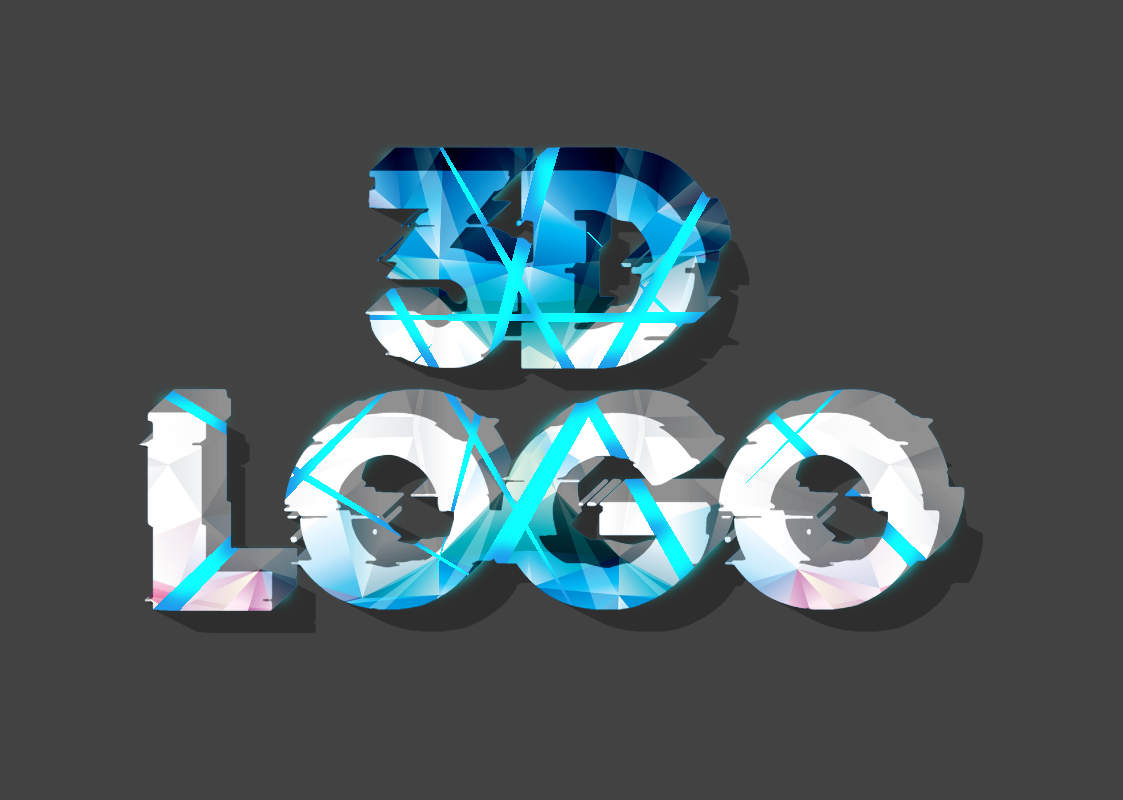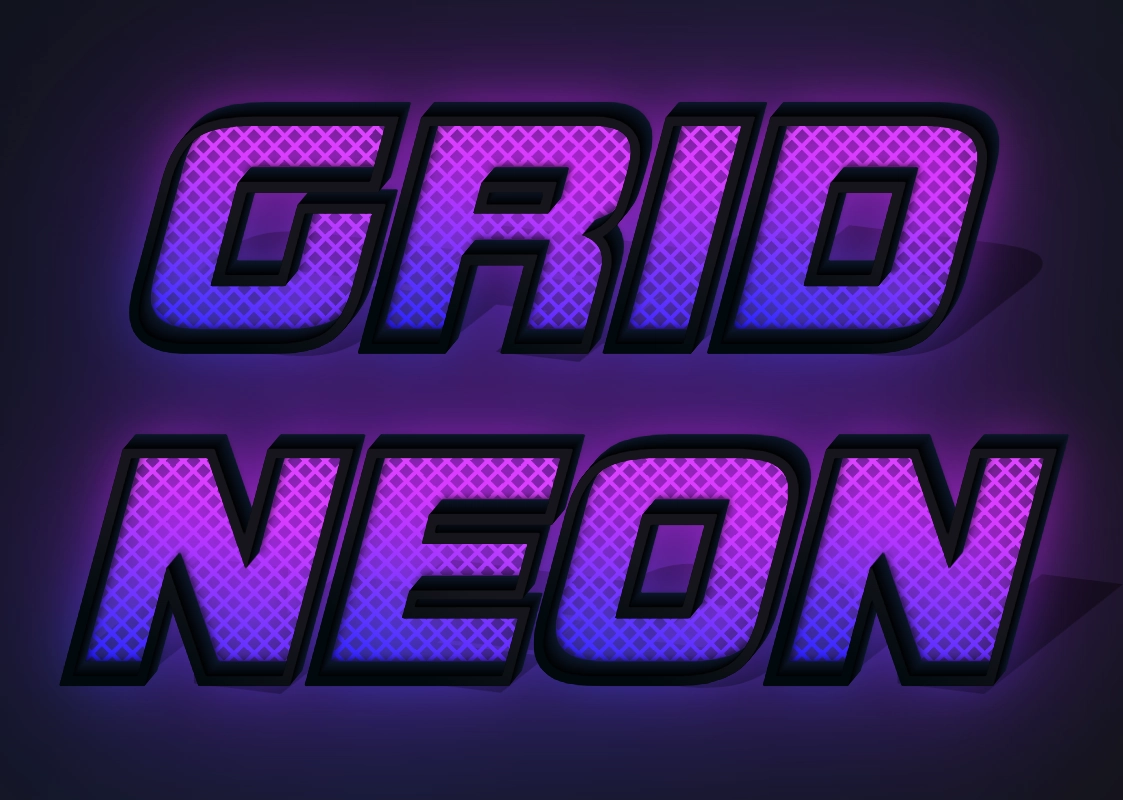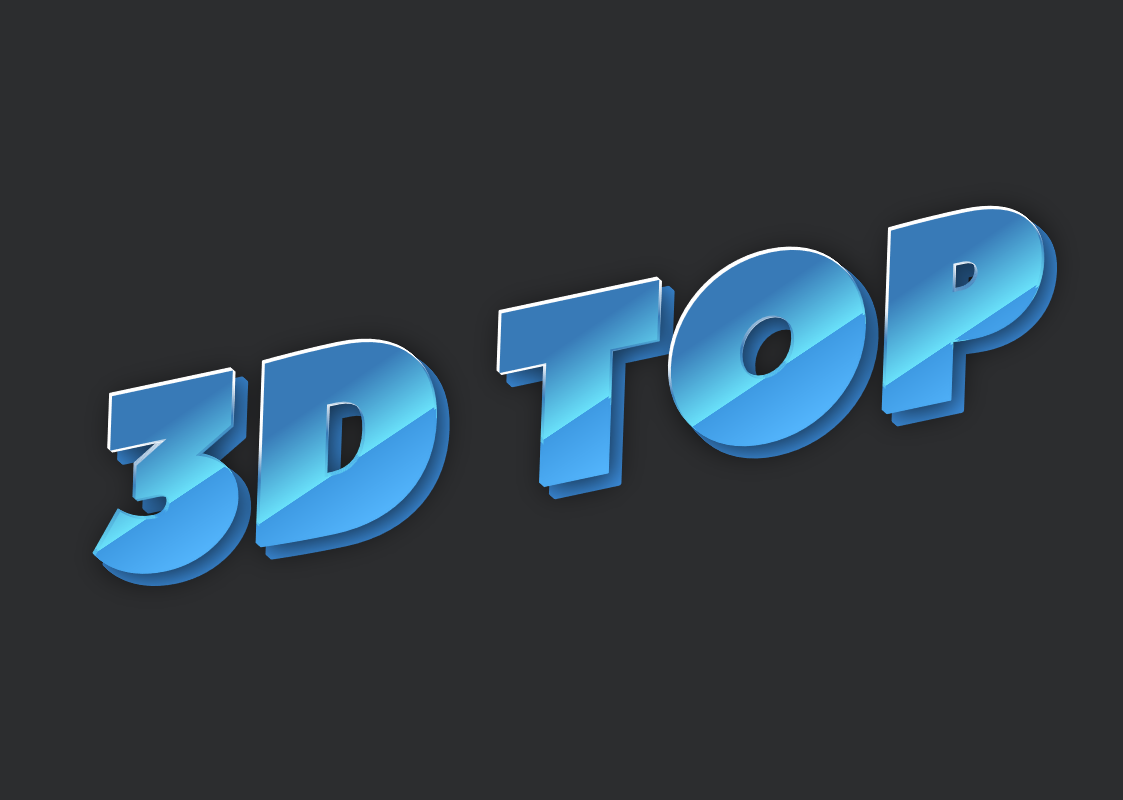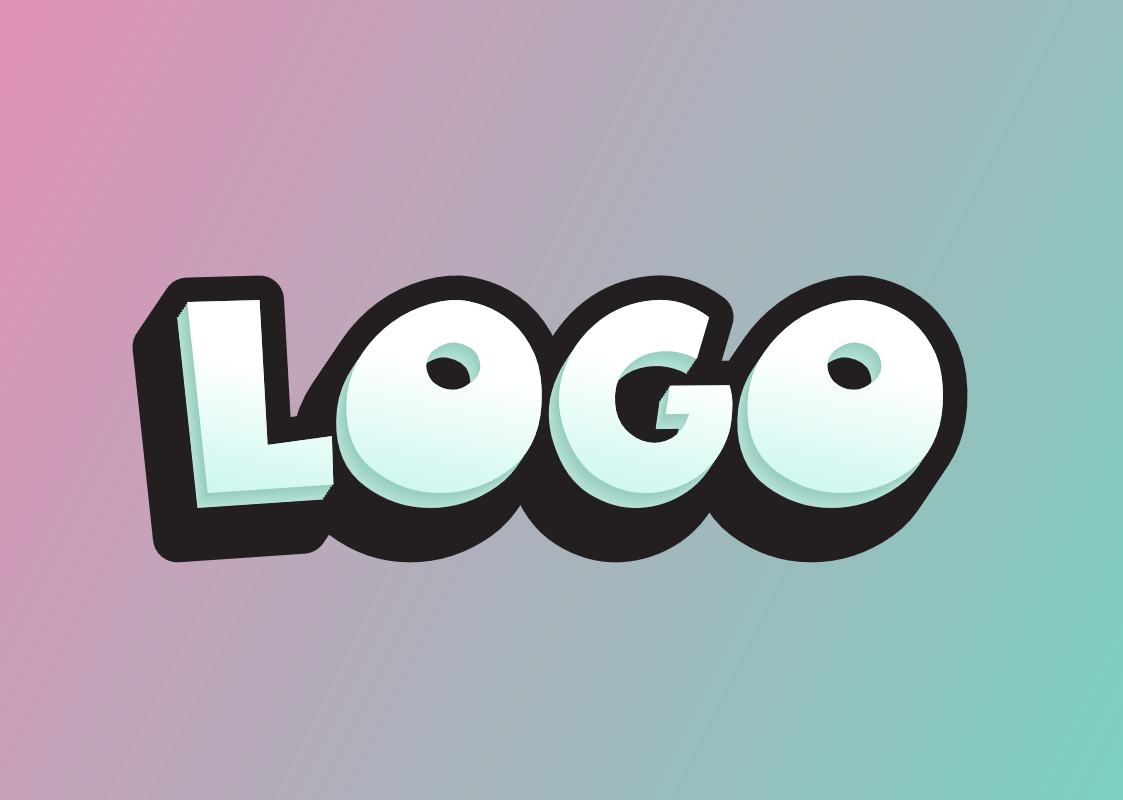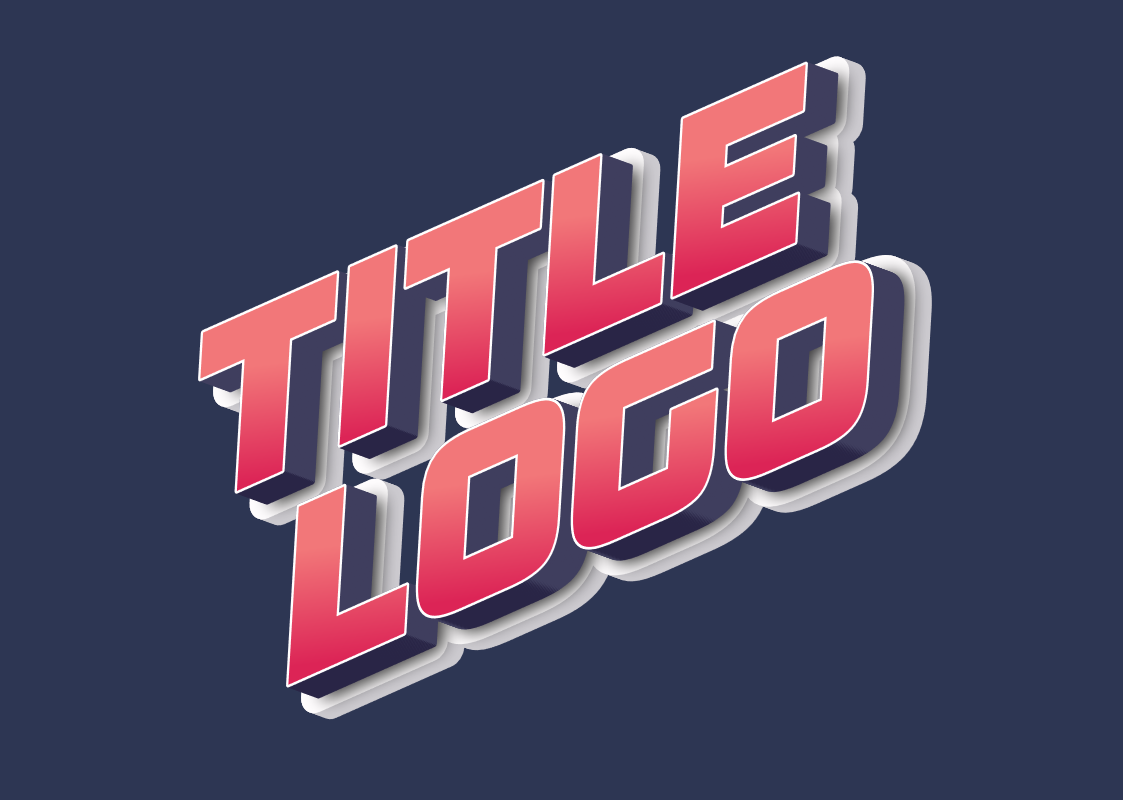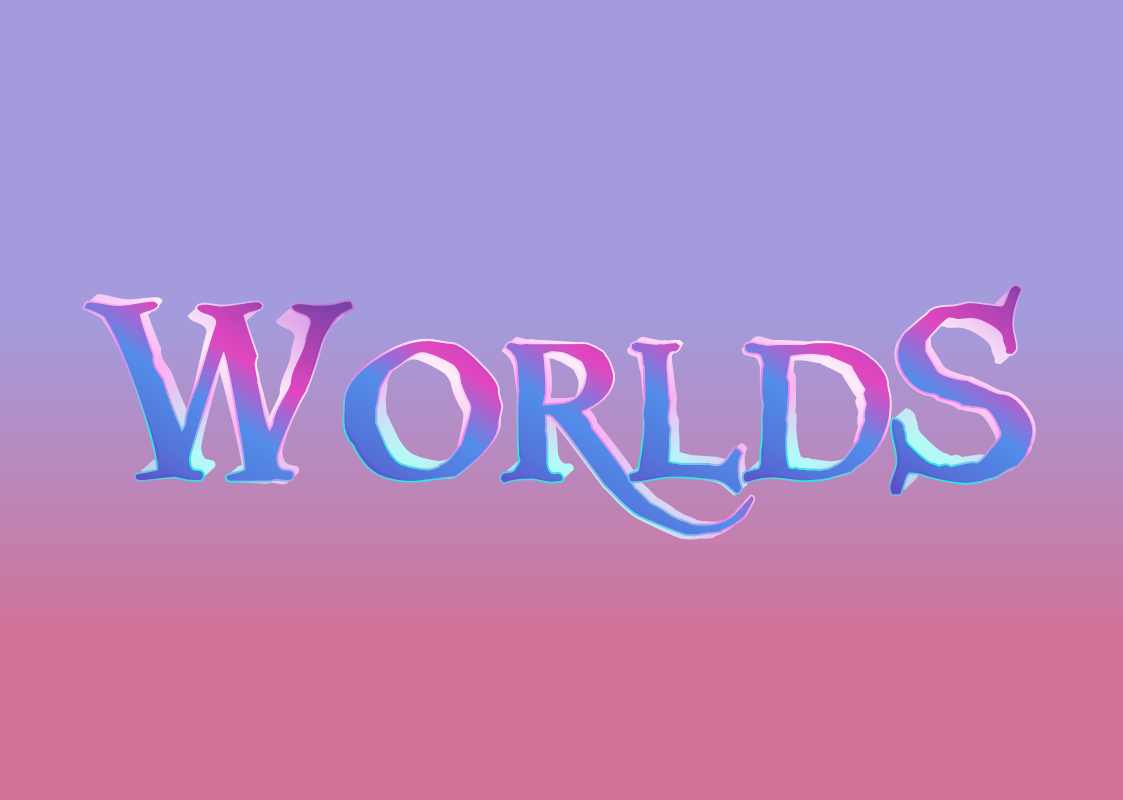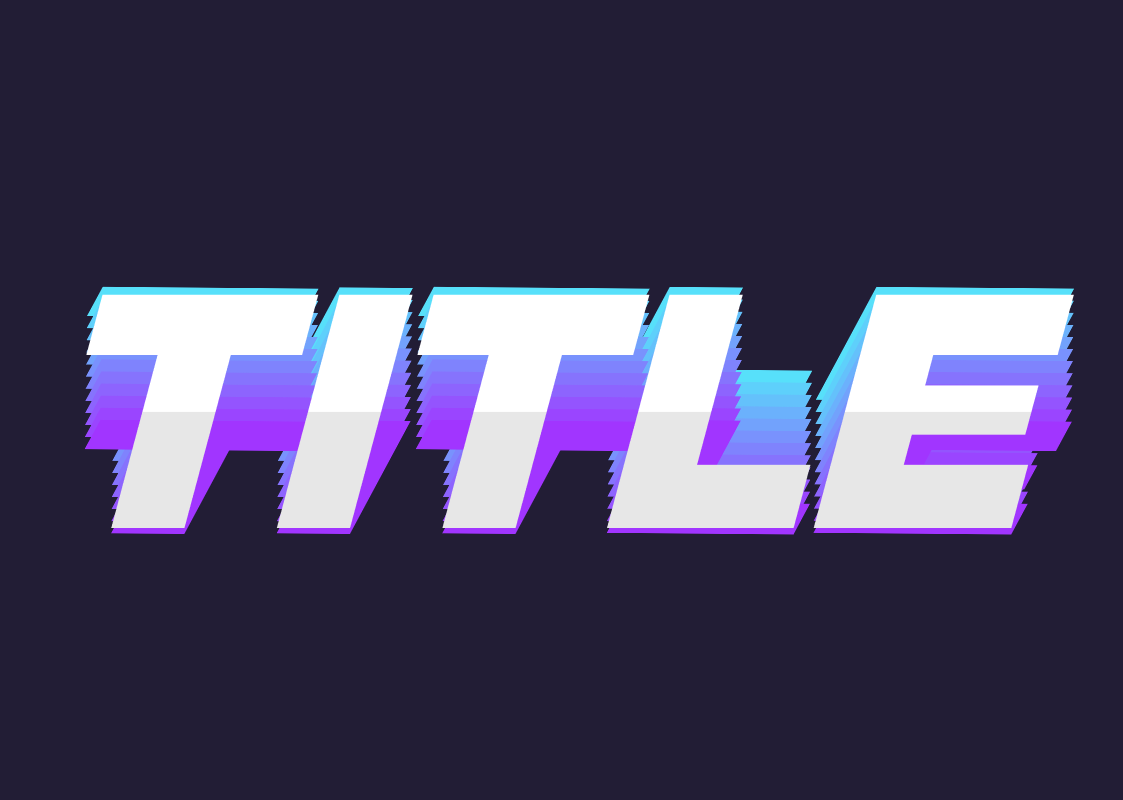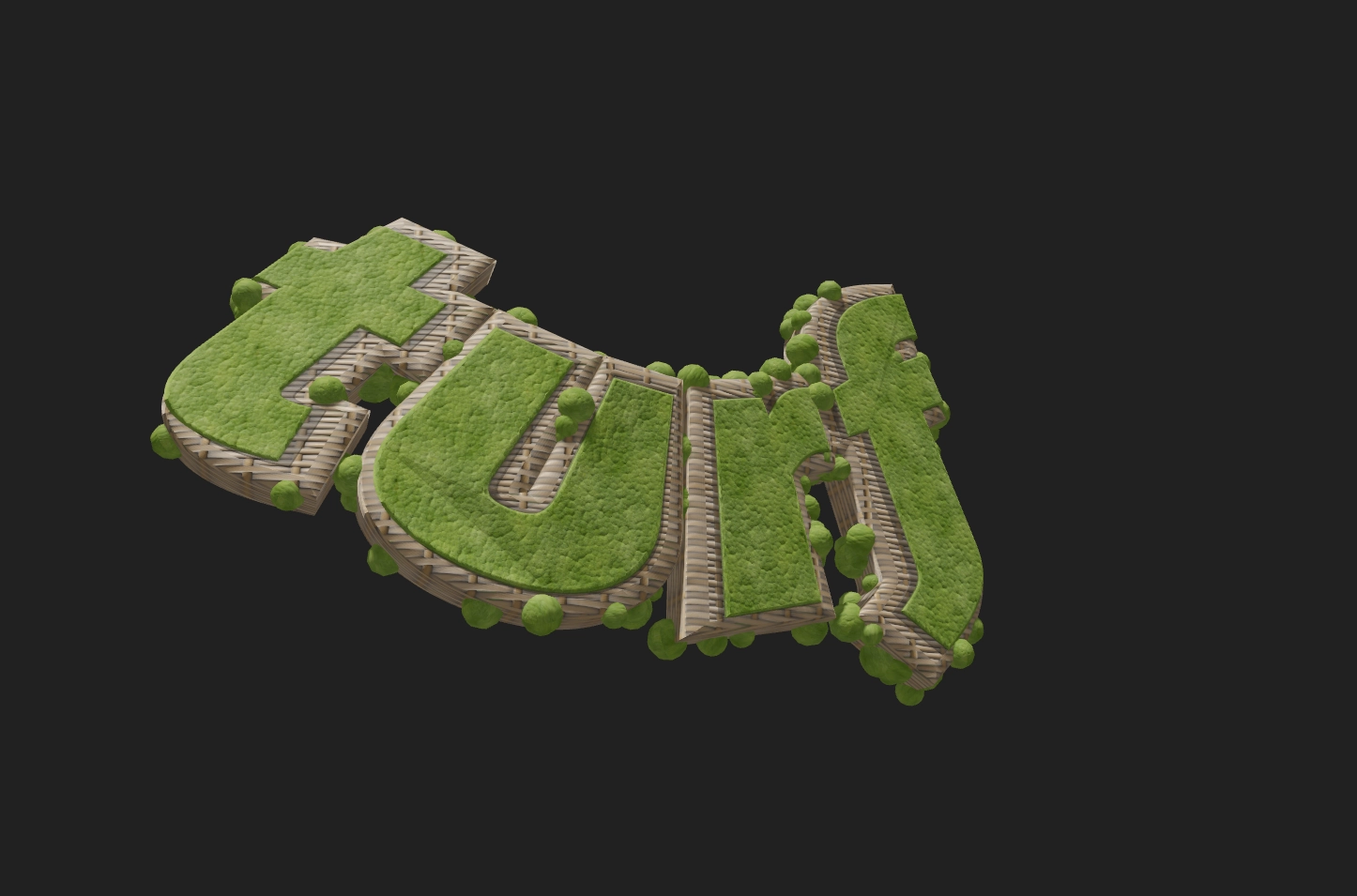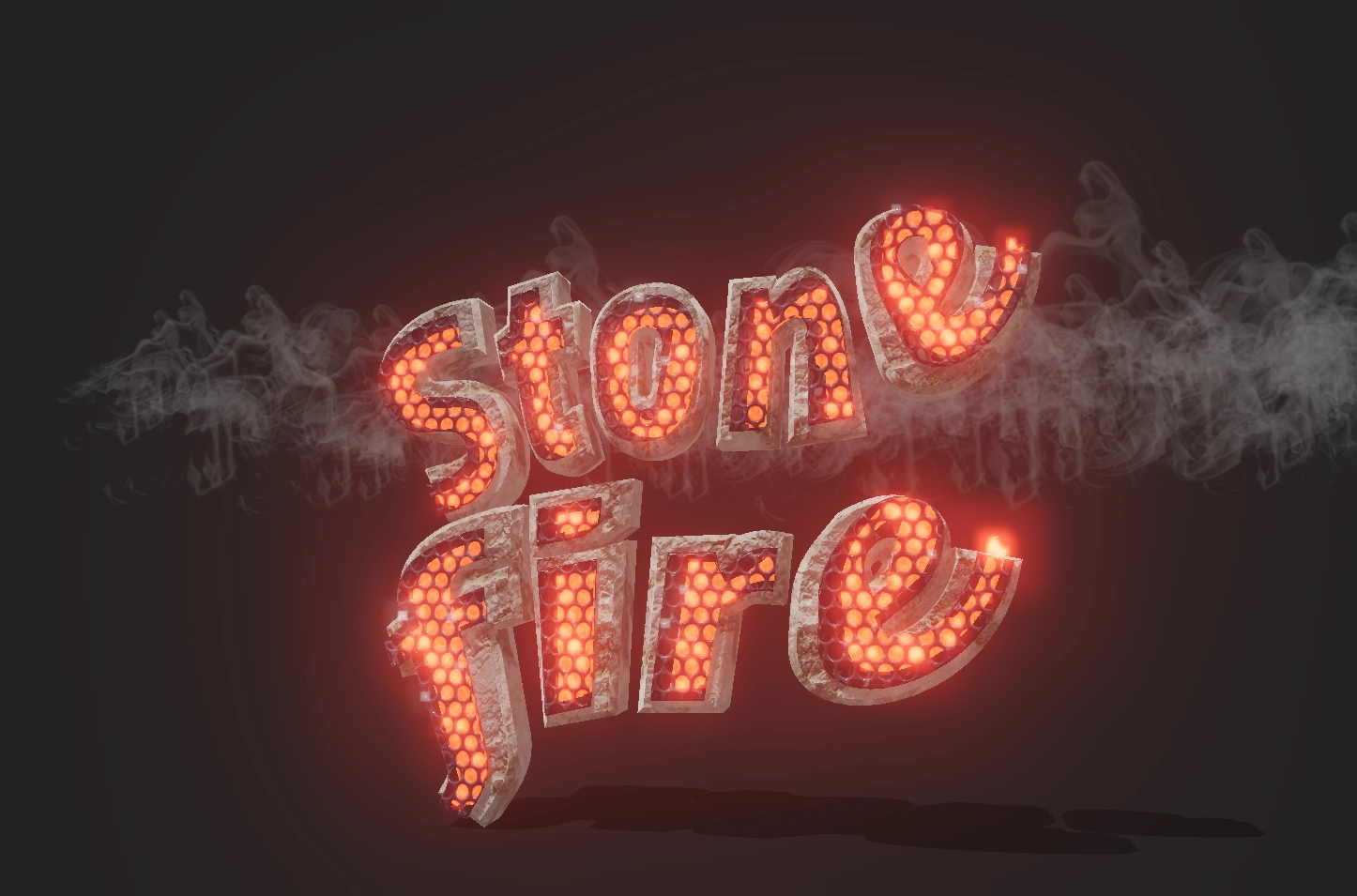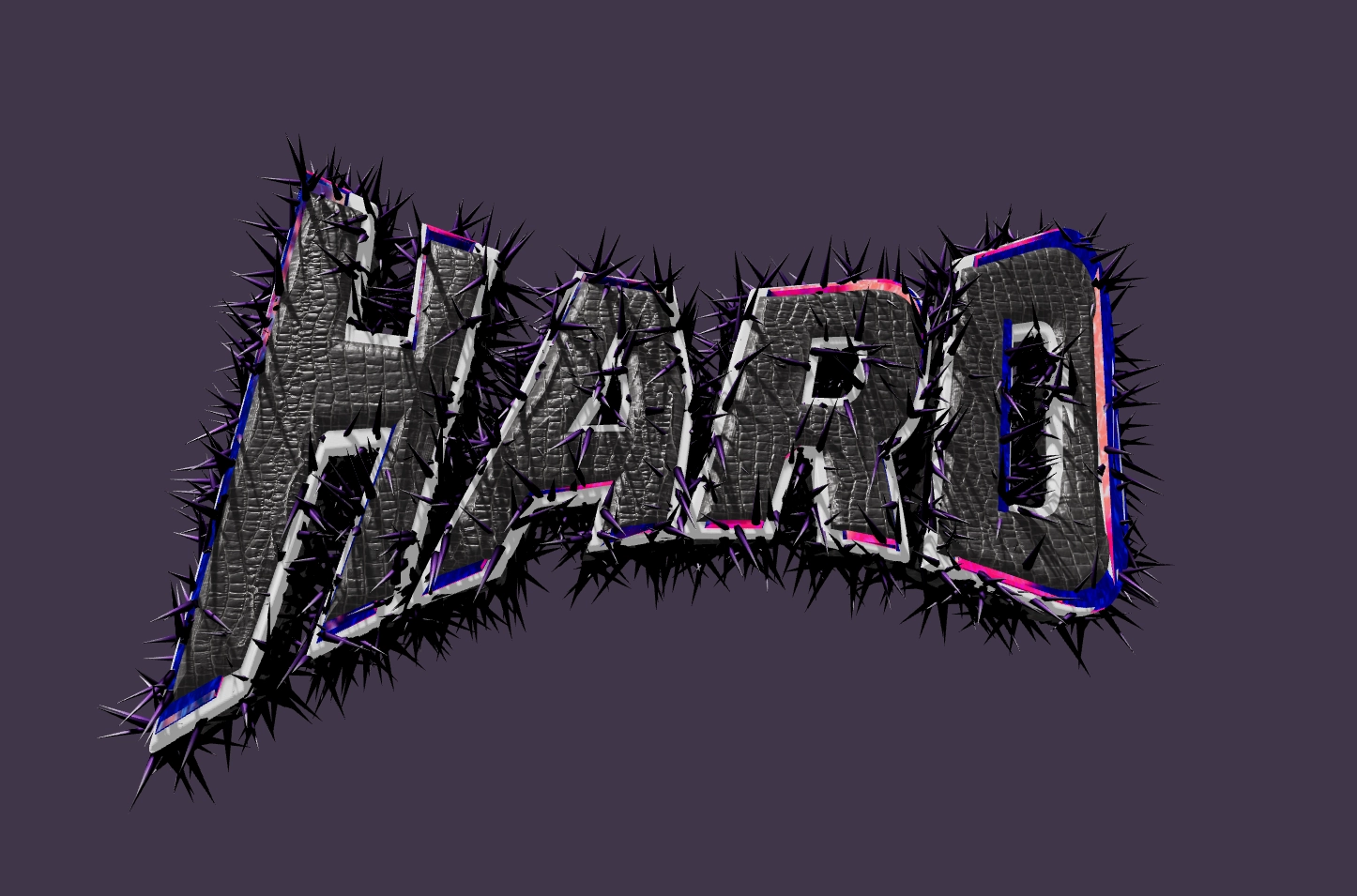
Beautiful 3D Inscriptions
Online 3D text generator: give your inscriptions a volumetric and expressive look with our 3D-style fonts.
Create impressive 3D text online with our unique fonts
Create beautiful 3D text online with our fonts, giving your inscriptions a unique effect of volume and depth.
Volumetric 3D text in comic book style.
This is a volumetric 3D text with a pronounced perspective and distortion effect.
3D Text Effect Thunderclouds: Icy Font with Neon Lighting, Lightning, and Rain.
This is a volumetric, 3D text effect with a glossy, slightly embossed texture resembling ice or frost. The font has rounded, 'puffy' shapes in a cartoon style. The key feature is a bright internal neon glow of a cold turquoise or blue color, creating an effect of illumination from within and along the contour of the letters.
Brutal 3D text effect with spikes and cracked texture
Aggressive text effect in Metal / Punk-rock style. Hardcore / Grunge text style with spikes. 3D text for a logo in Heavy-metal style.
3D Text Effect "Molten Stone" with Glow
This is a volumetric 3D text effect that combines two contrasting textures: rough, cracked stone and molten, glowing fire.
Eco-Style: 3D Text with Grass and Rattan Texture
This is a volumetric, three-dimensional (3D) text effect in a natural, eco-friendly style. The letters have a complex texture.
"Wild" - 3D Text with "Neon" Effect
3D text with a "neon" glow. Gray letters with a bright purple gradient and outline. Set against a dark purple background. Ideal for creating a bright and eye-catching headline for projects with a "wild" theme.
"Phantom" - Textured 3D Text in "Neon" Style
3D text in "neon" style. White letters with a bright gradient from white to blue, with texture and a slight shadow. Set against a dark blue background. Ideal for creating a bright and eye-catching headline for projects with a "mystical" theme.
"Outrun" - 3D Text in "Synthwave" Style
3D text in "synthwave" style. Blue letters with a bright gradient from blue to pink, with reflection. Set against a dark blue background. Ideal for creating a bright and eye-catching headline for retro-futuristic projects.
"Sneaker" - Golden Text in "Handwriting" Style
Text styled as 'handwritten'. Golden letters with a bright gradient and black outline. Set against a gray background with a blue 'contour'. Ideal for creating a bright and eye-catching headline for projects with a 'sports' theme.
"Game Logo" - Bright 3D Text
3D text in a bright style. Purple letters with a bright blue gradient and black outline. Set against a bright pink background. Ideal for creating a bright and eye-catching headline for games and other projects with a "bright" style.
"Winner" - Golden 3D Text with Reflection
3D text in a "golden" style. Golden letters with a bright gradient and reflection. Set against a white background. Ideal for creating a bright and eye-catching headline with an element of victory.
"City" - Metallic Text in "Cyberpunk" Style
3D text in a "cyberpunk" style. Silver letters with a bright gradient from gray to blue. Set against a black background. Ideal for creating a bright and eye-catching headline for futuristic projects.
"Future" - 3D Text with Cybernetic Pattern
3D text in a "cybernetic" style. Blue letters with a bright gradient from blue to purple and a pattern of electronic circuits. Set against a black background. Ideal for creating a bright and eye-catching headline for futuristic projects.
"Winter Logo" - Blue 3D Text with Glossy Effect
3D text with a "glossy" effect. Blue letters with a bright gradient. Set against a dark blue background. Ideal for creating a bright and eye-catching headline for winter projects.
"Friday" - Stylish Text with Gradient
Text styled as 'handwritten'. Purple letters with a bright gradient and black outline. Set against a gray background. Ideal for creating a bright and eye-catching headline with a "festive" theme.
"Woods Logo" - Green Text in "Cartoon" Style
3D text in "cartoon" style. Green letters with a bright gradient, black outline, and shadow. Set against a green-turquoise background. Ideal for creating a bright and eye-catching headline with a "nature" theme.
"Craft Text" - Golden 3D Text with Blue Outline
3D text in "luxury" style. Golden letters with a bright gradient and blue outline. Set against a blue-purple background. Ideal for creating a bright and eye-catching headline with an element of luxury.
"Snow Logo" - Snowy Text in "Handwriting" Style
Text styled as 'handwritten'. Gray letters with a bright blue gradient and a slight shadow. Set against a gray background. Ideal for creating a bright and eye-catching headline for winter projects.
"Nice Logo" - Stylish Text in Retro Style
3D text in "retro" style. Blue letters with a bright gradient, with a purple outline and a yellow "frame". Set against a purple background. Ideal for creating a bright and eye-catching logo.
Curved 3D inscription with a shadow
Make a curved 3D text logo with a beautiful font with an arc effect.
Bright multilayered 3D inscription
Add a bright, juicy volumetric 3D juice effect to the font.
3D text with an aluminum body
Create a beautiful 3D inscription with an aluminum body effect.
3D inscription destruction
Make a text 3D logo in a destruction style.
Start creating beautiful 3D fonts
The best online 3D text generator. Style your inscriptions with fonts featuring a stunning 3D effect that adds volume and uniqueness to your designs.